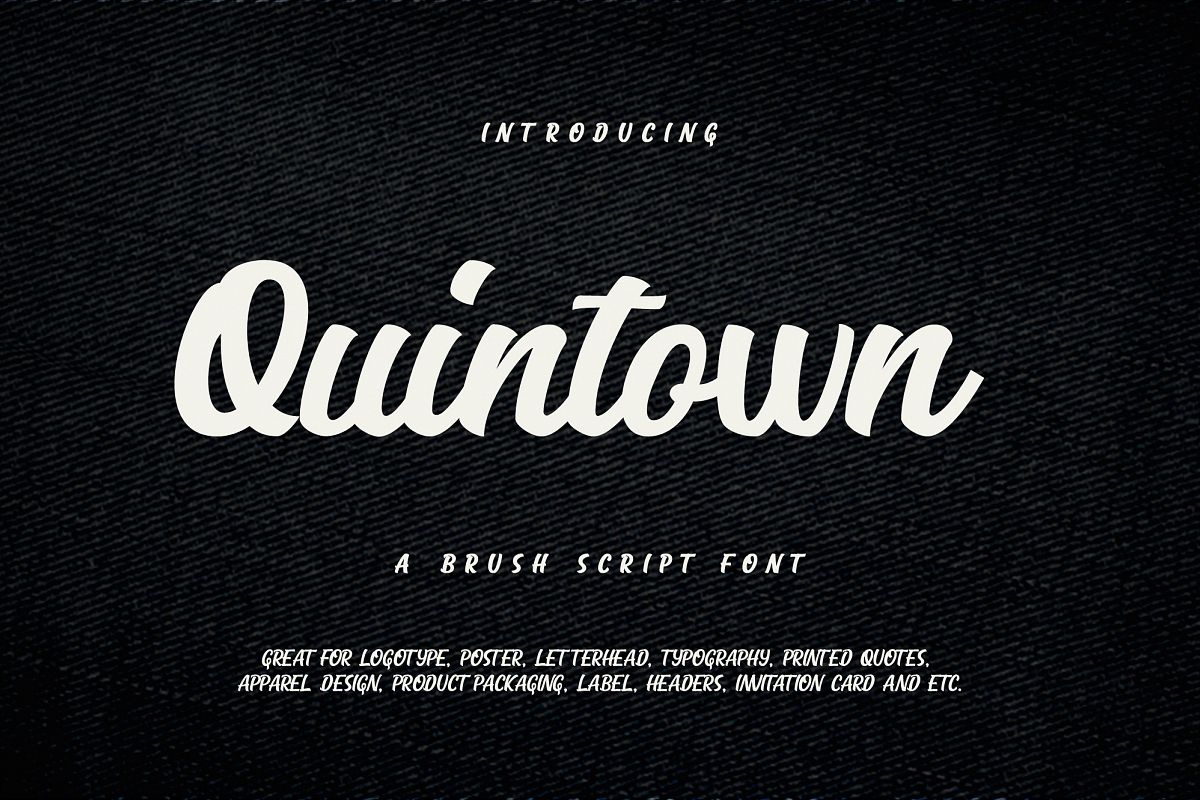
Quintown is a chunky script font which is perfect for a number of projects. Its smooth marker style letters make this a fun font to work with. Extra Swashes included.